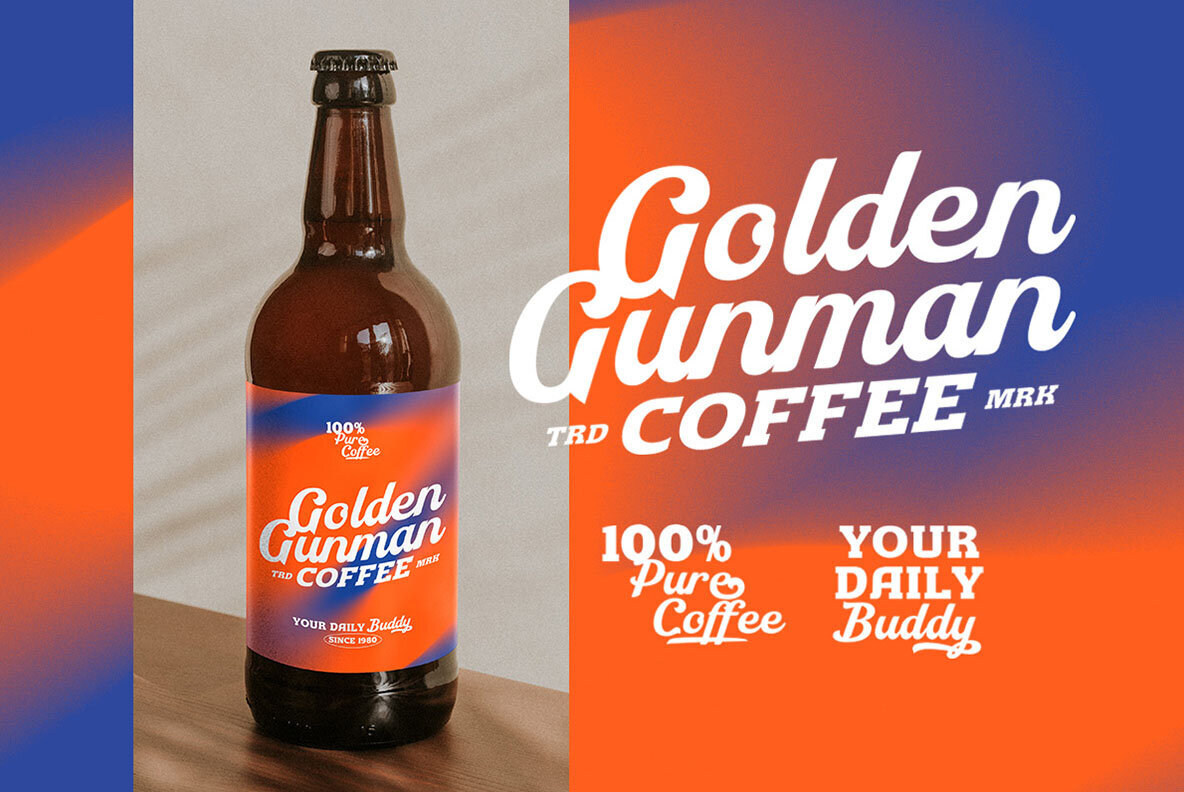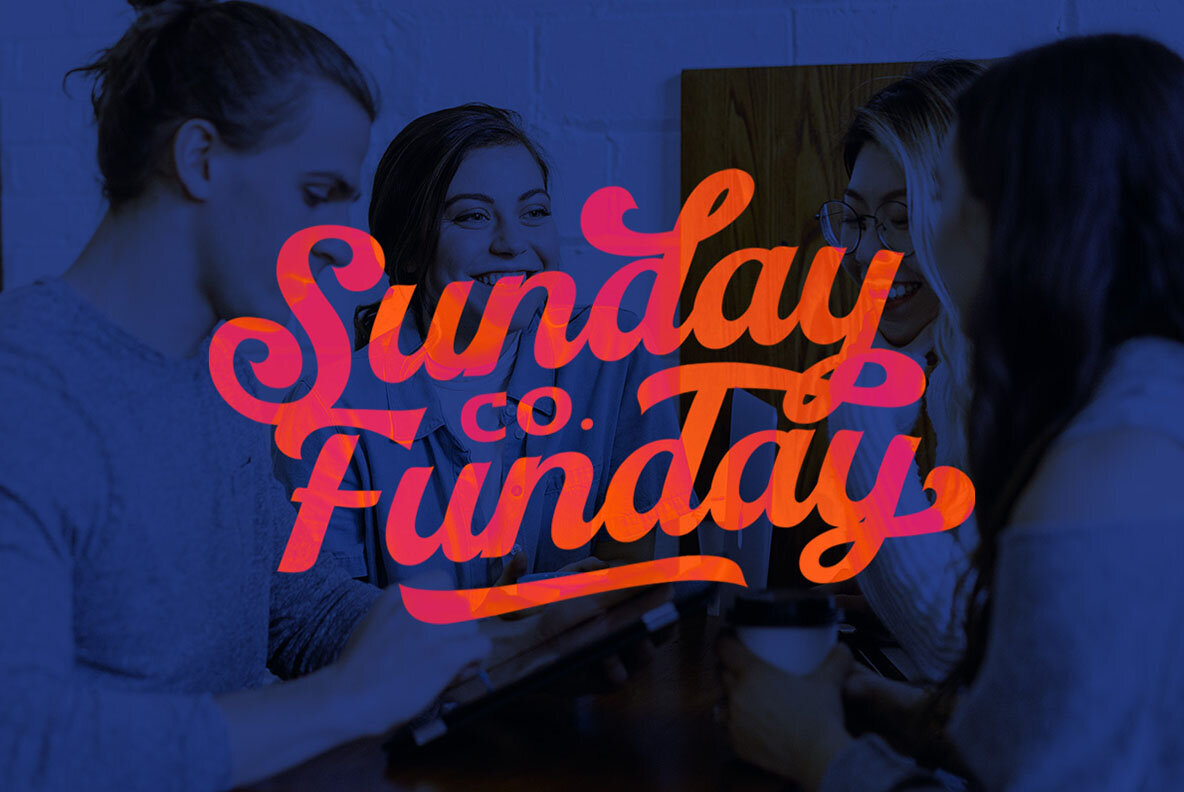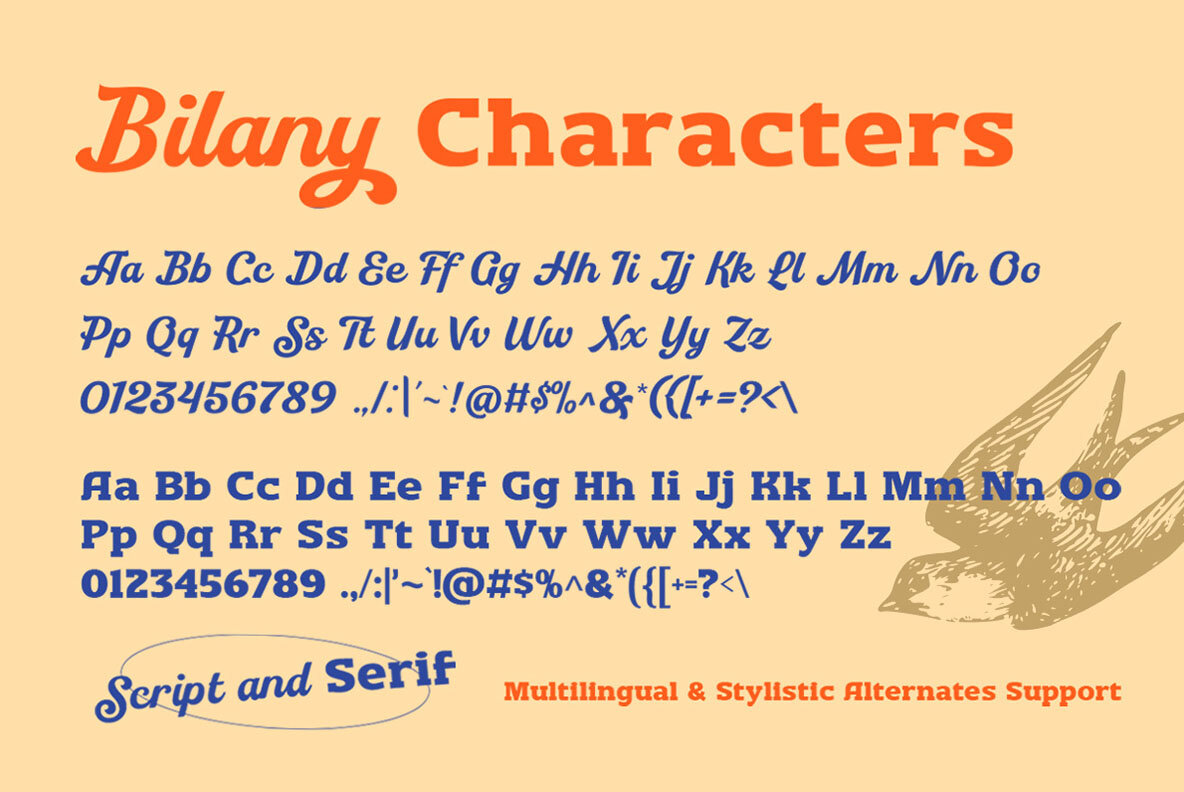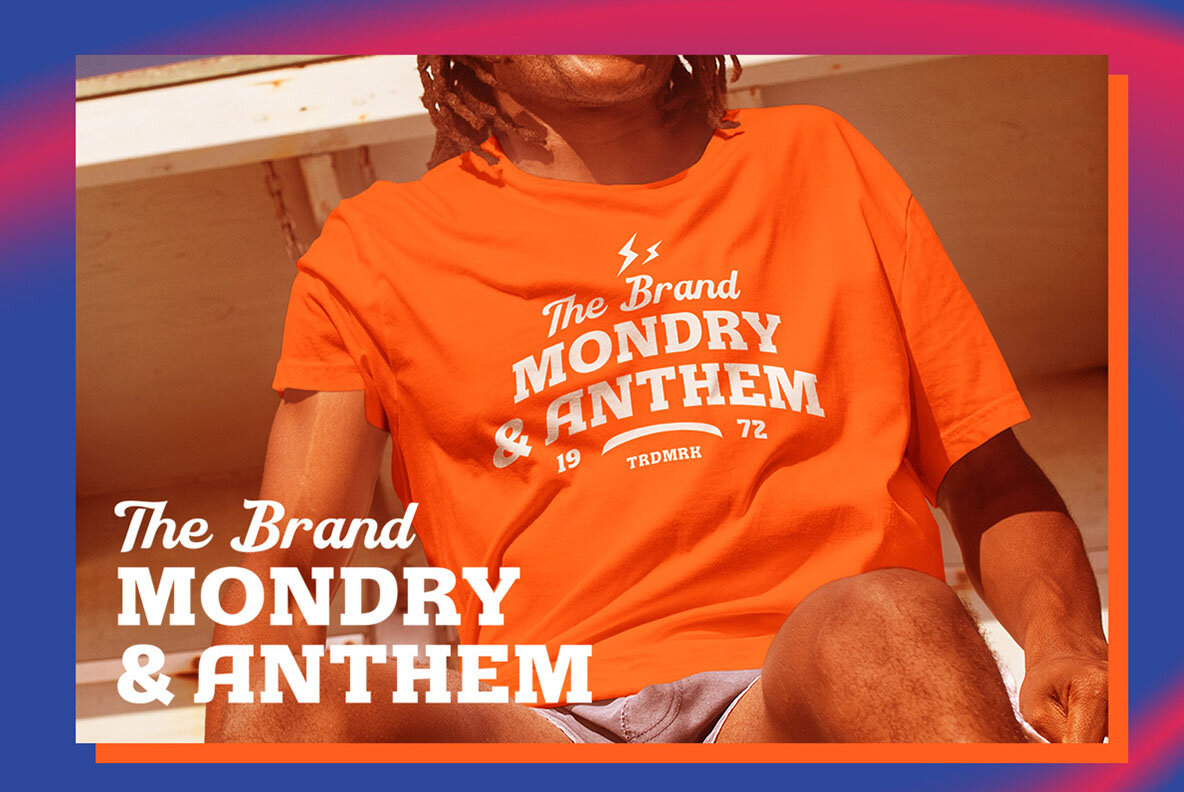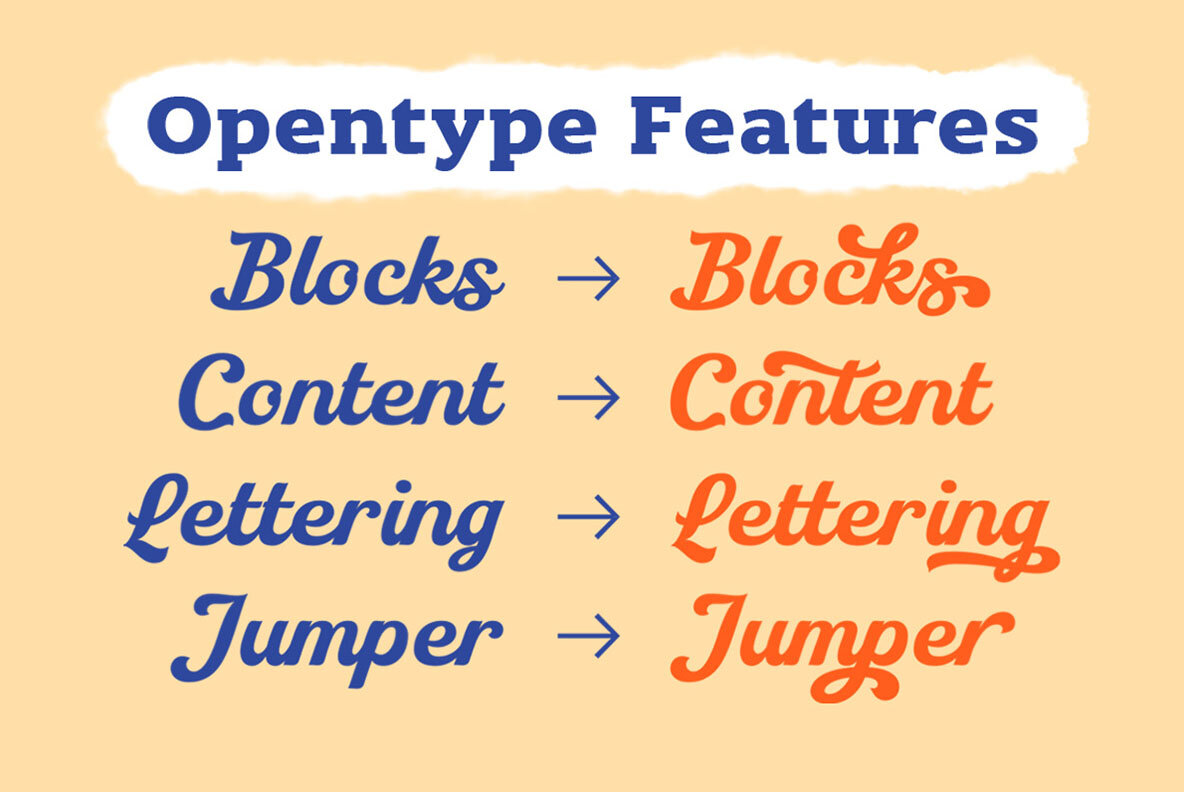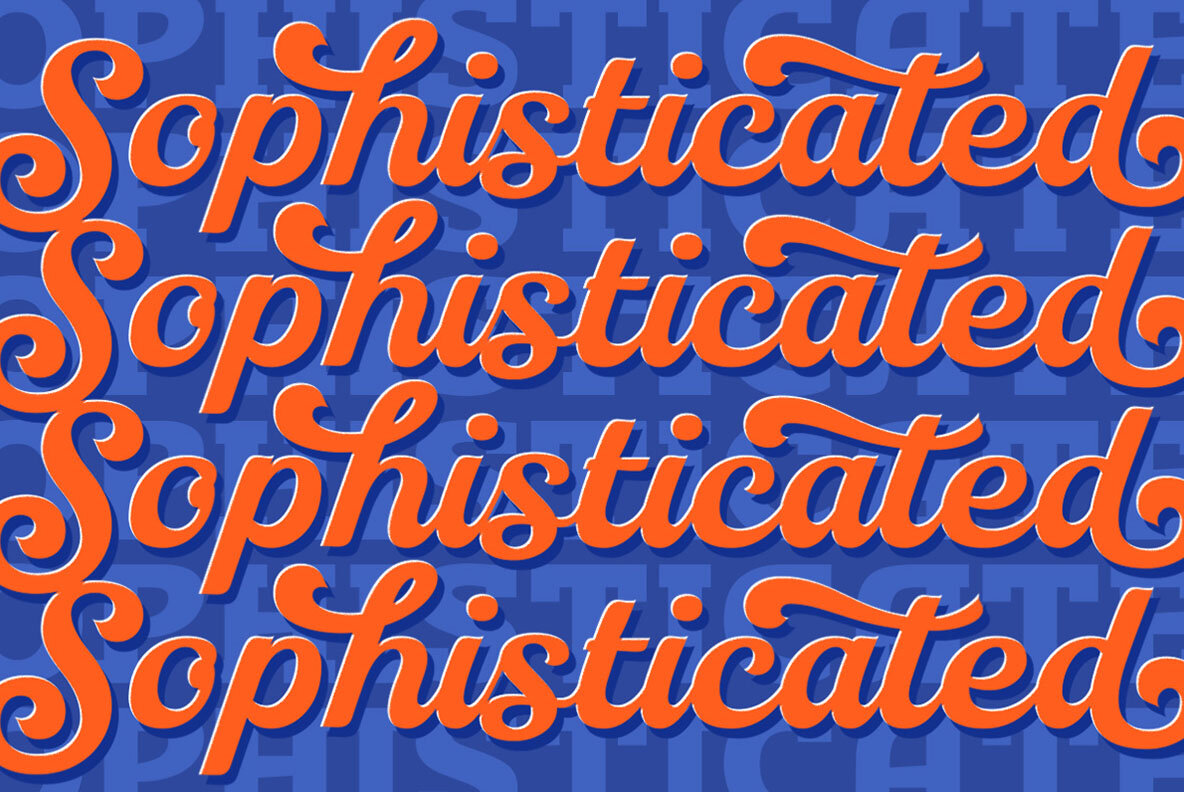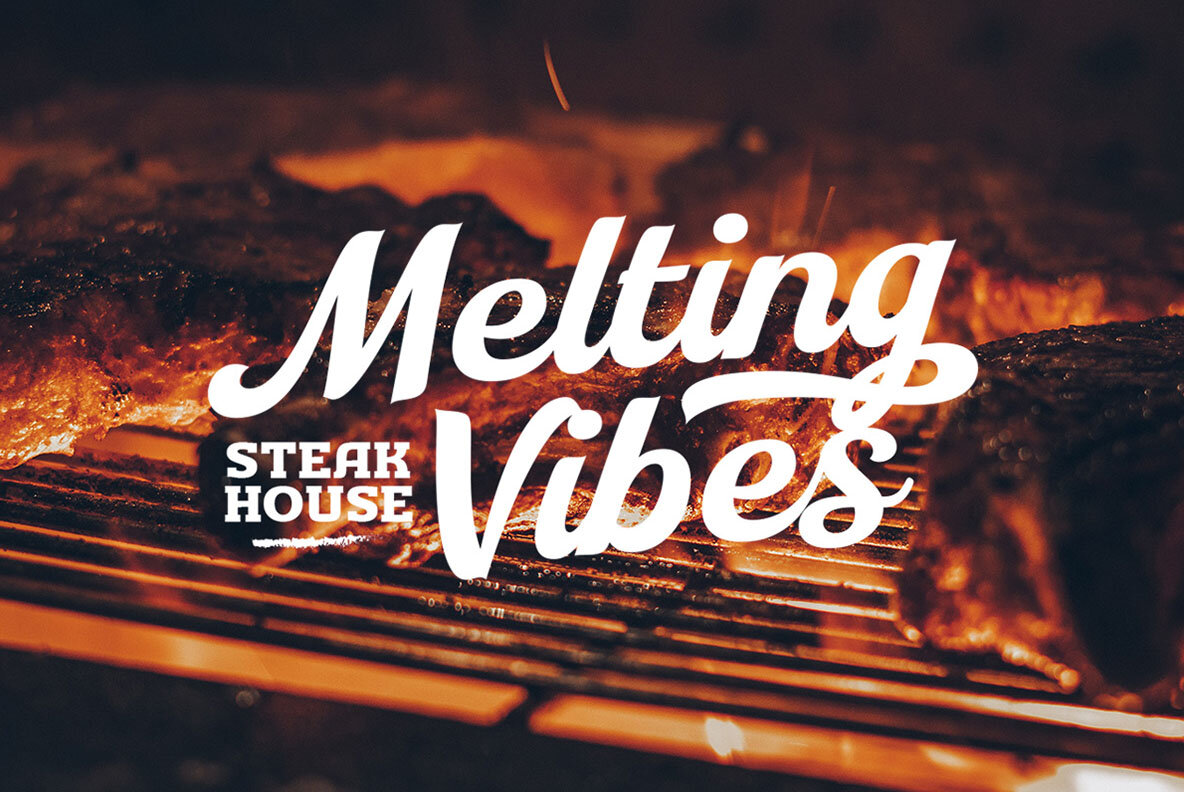
The Bilany Font
The Bilany is a distinct font duo package that combines a classic script with a slab serif, creating a perfect pairing for vintage and adventure-themed projects. This font duo is designed for various formal and stylish applications, including headlines, displays, logotypes, invitations, labels, logos, magazines, books, greeting and wedding cards, packaging, fashion, makeup, stationery, novels, and advertising. We highly recommend using design software that supports OpenType features and Glyph panels, such as Adobe applications and Corel Draw, to fully utilize all glyph variations.The Bilany: Classic Script and Slab Serif Duo
Versatile Application